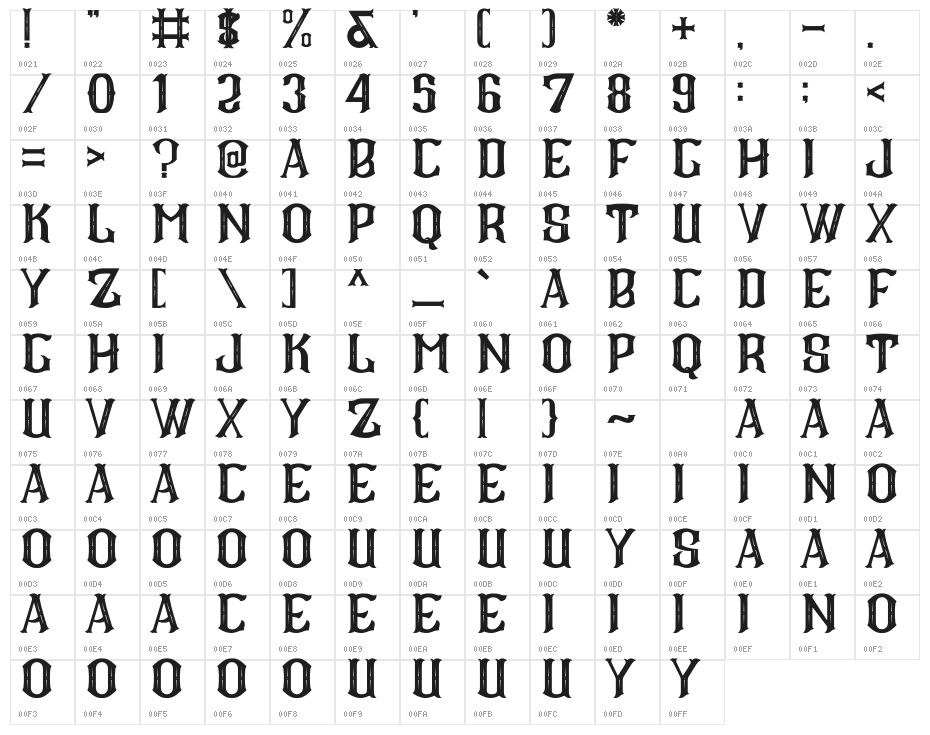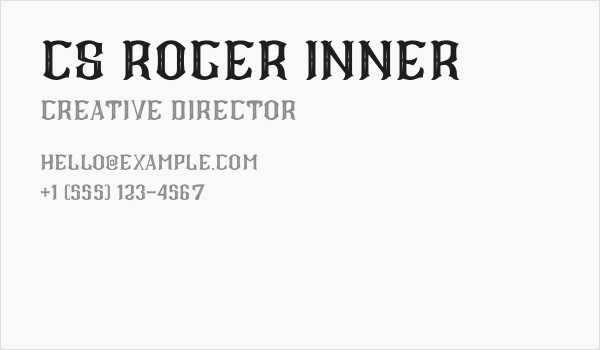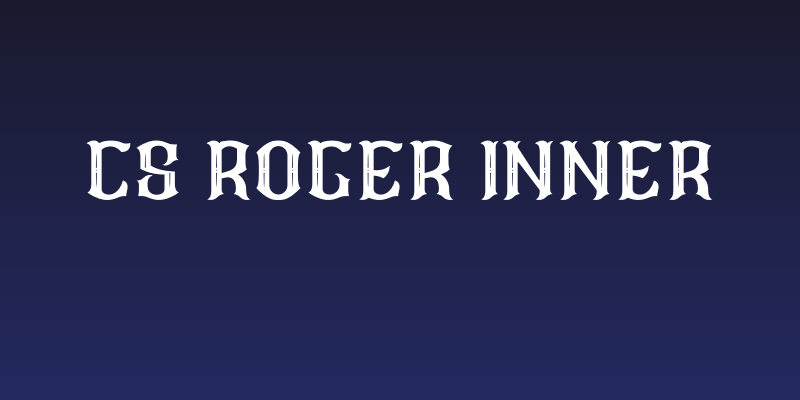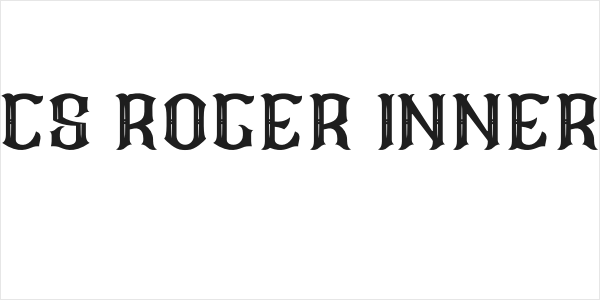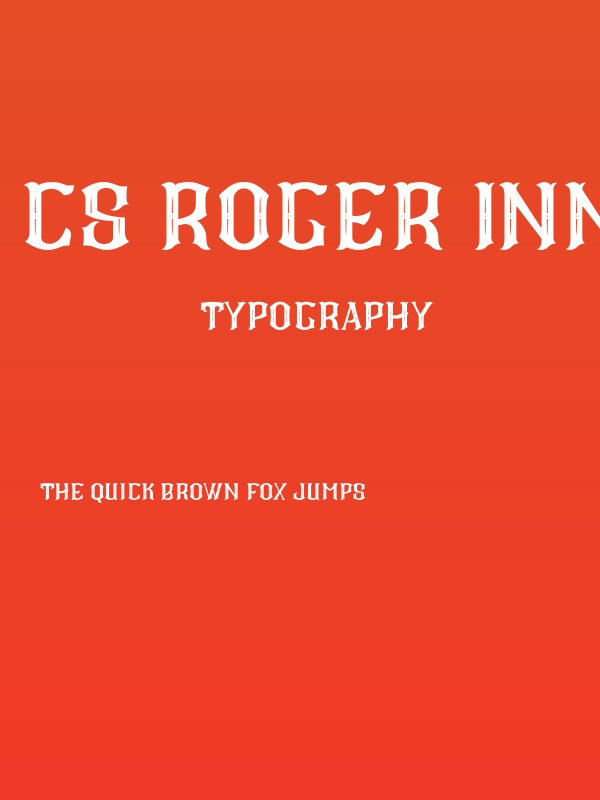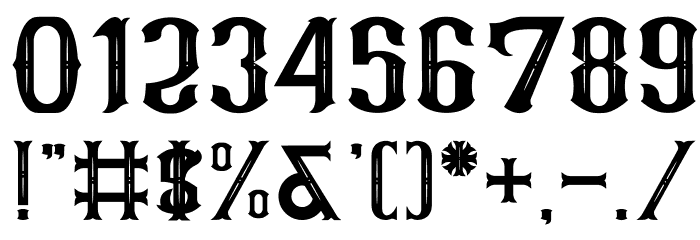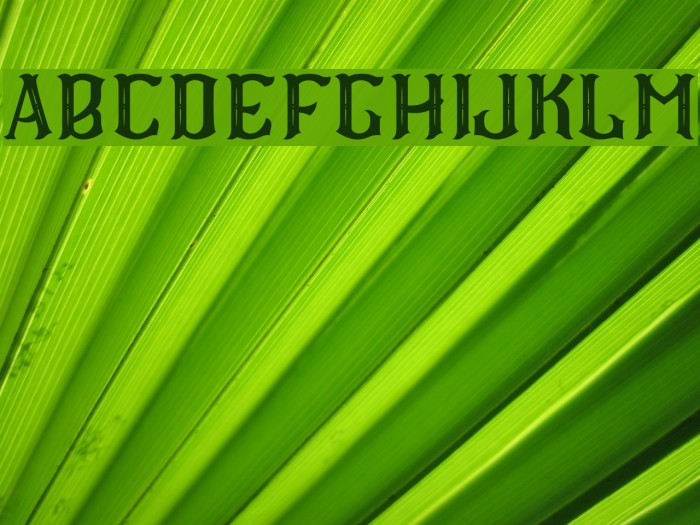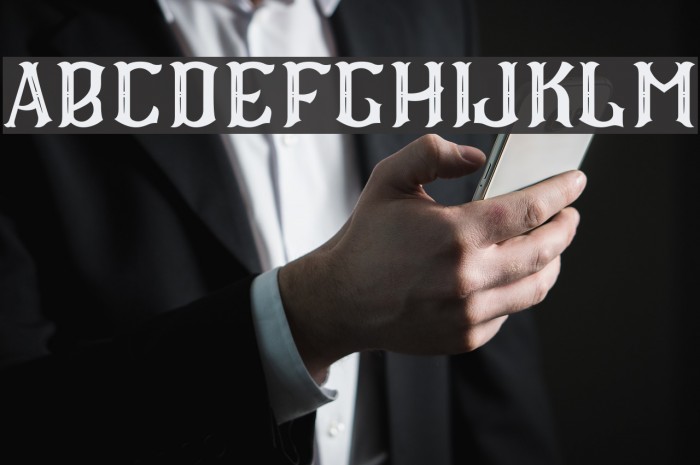
CS Roger Inner Font
CS Roger Inner Description
This font features a bold and decorative style with a distinct vintage flair. The characters are designed with sharp, angular edges and intricate detailing, giving them a gothic and ornate appearance. The uppercase and lowercase letters maintain a consistent style, with the uppercase being slightly more elaborate. The numbers and special characters follow the same design principles, ensuring uniformity across the font. The overall look is reminiscent of old-world typography, making it suitable for projects that require a touch of historical elegance.
| Overall Style | Vintage |
| Use Case | Logos, Headlines, Posters |
| Proposed Projects | Ideal for vintage-themed posters, book covers, branding for historical or fantasy events, and decorative signage. |